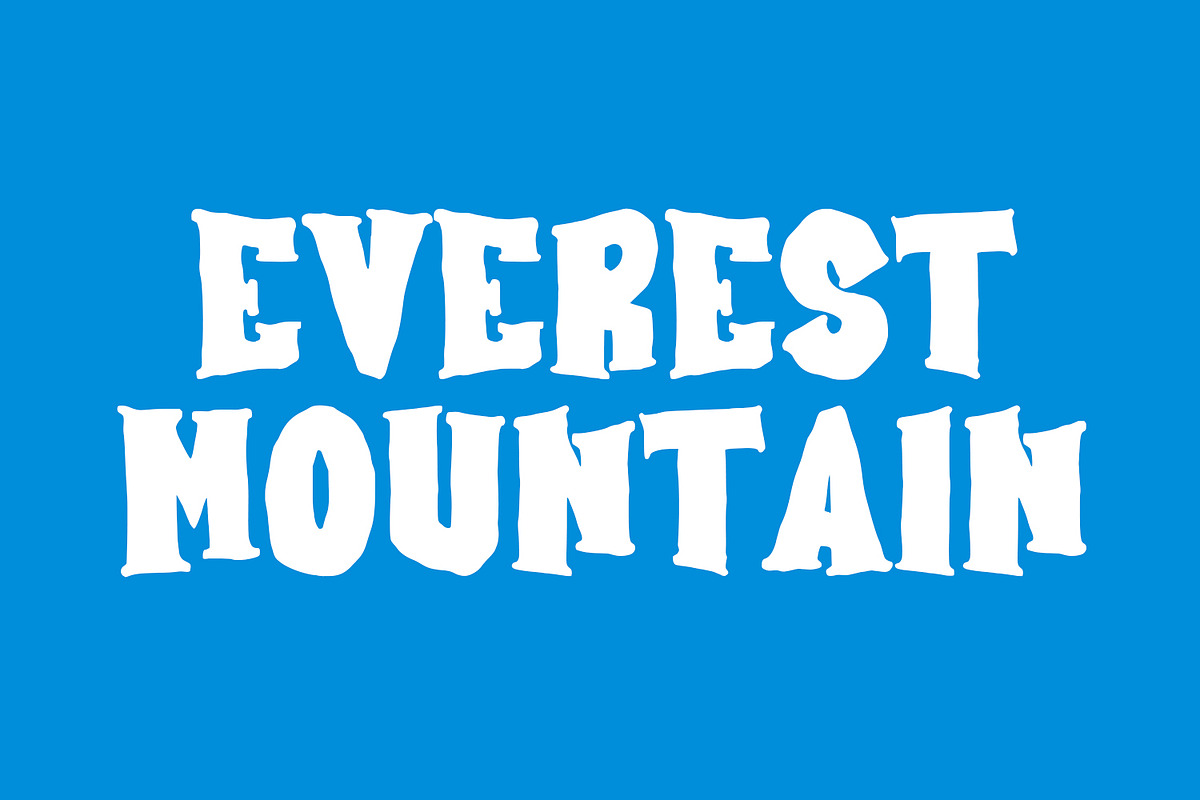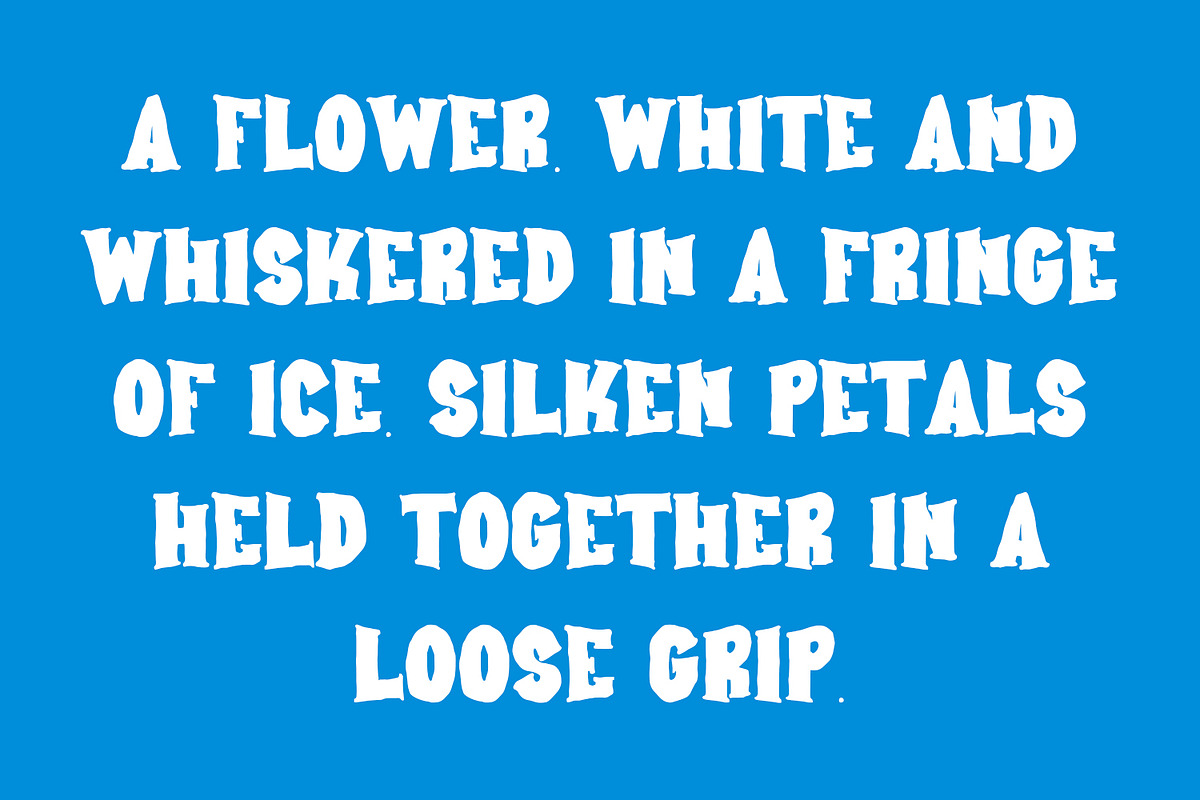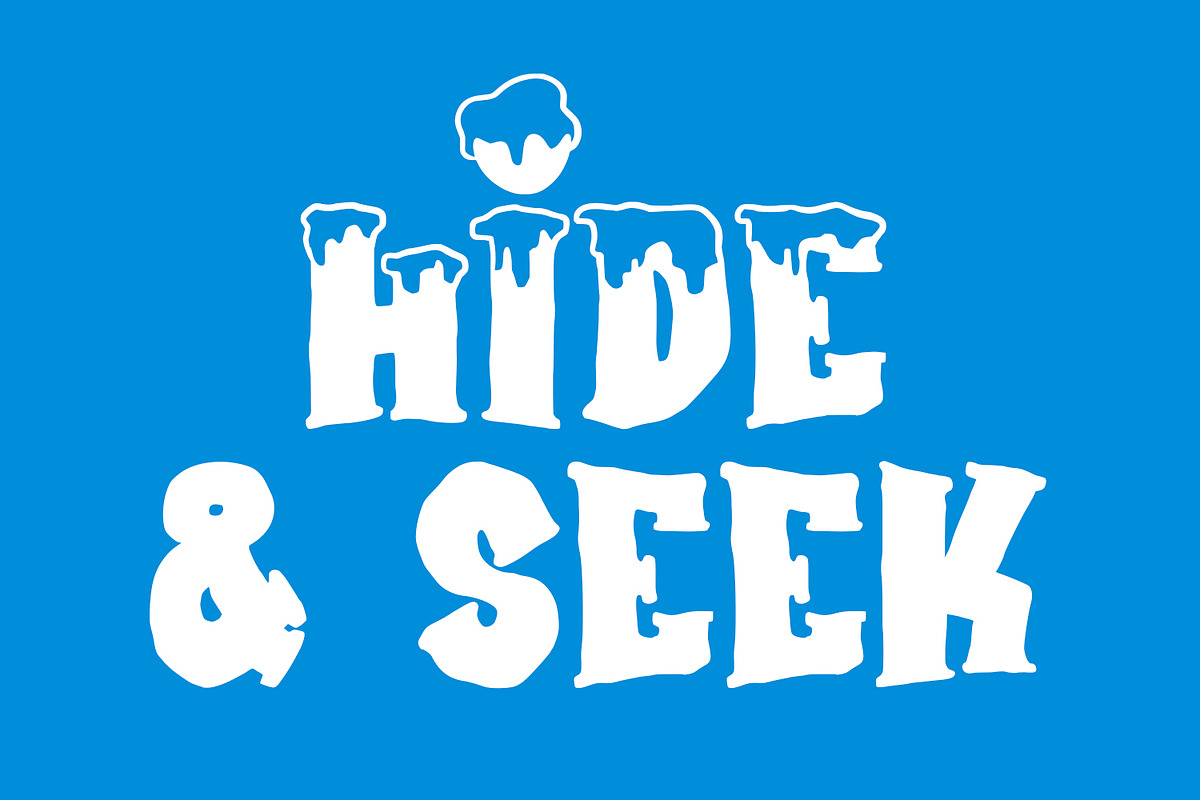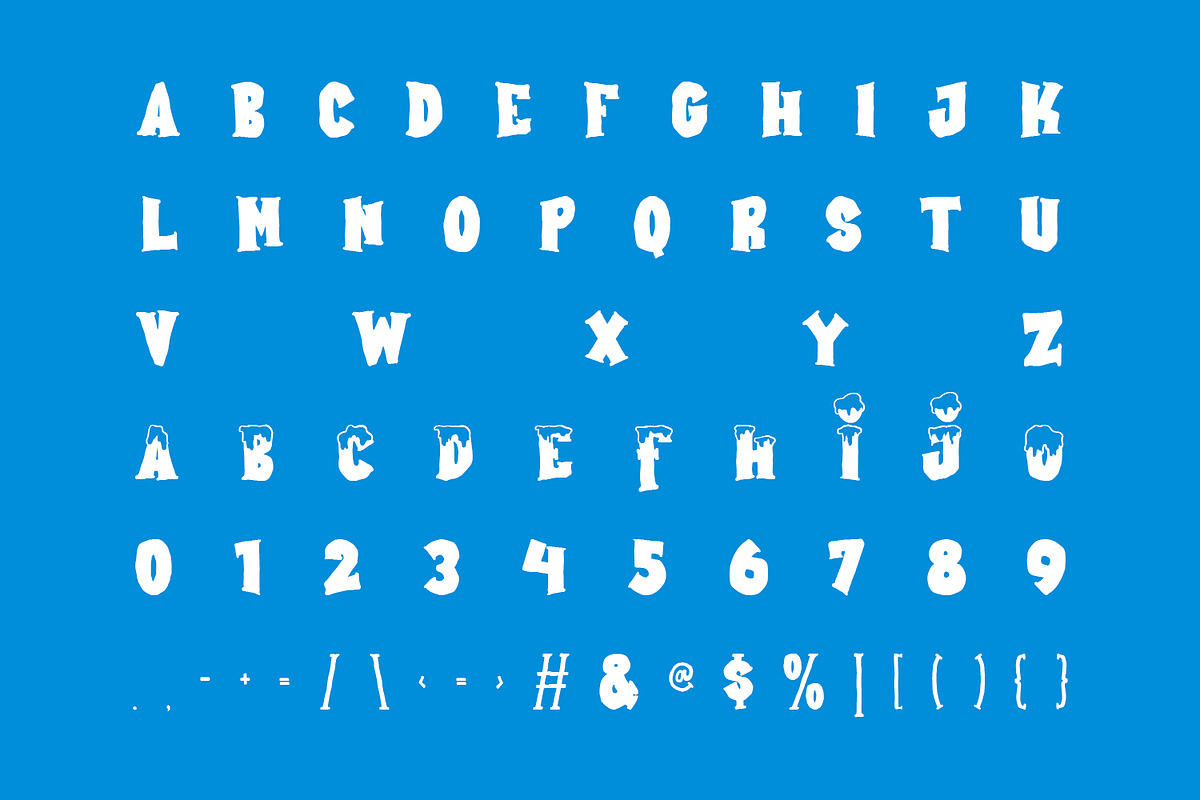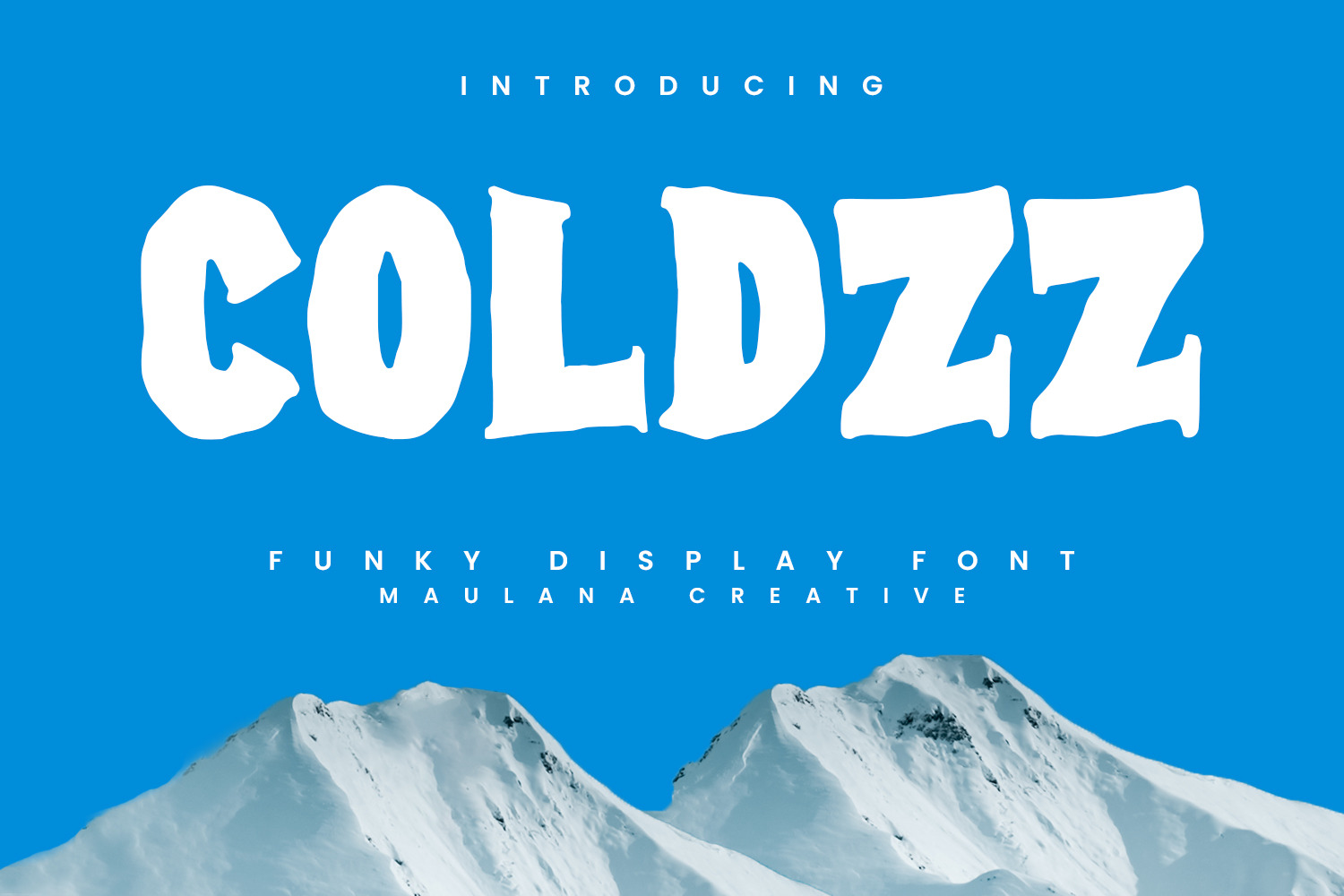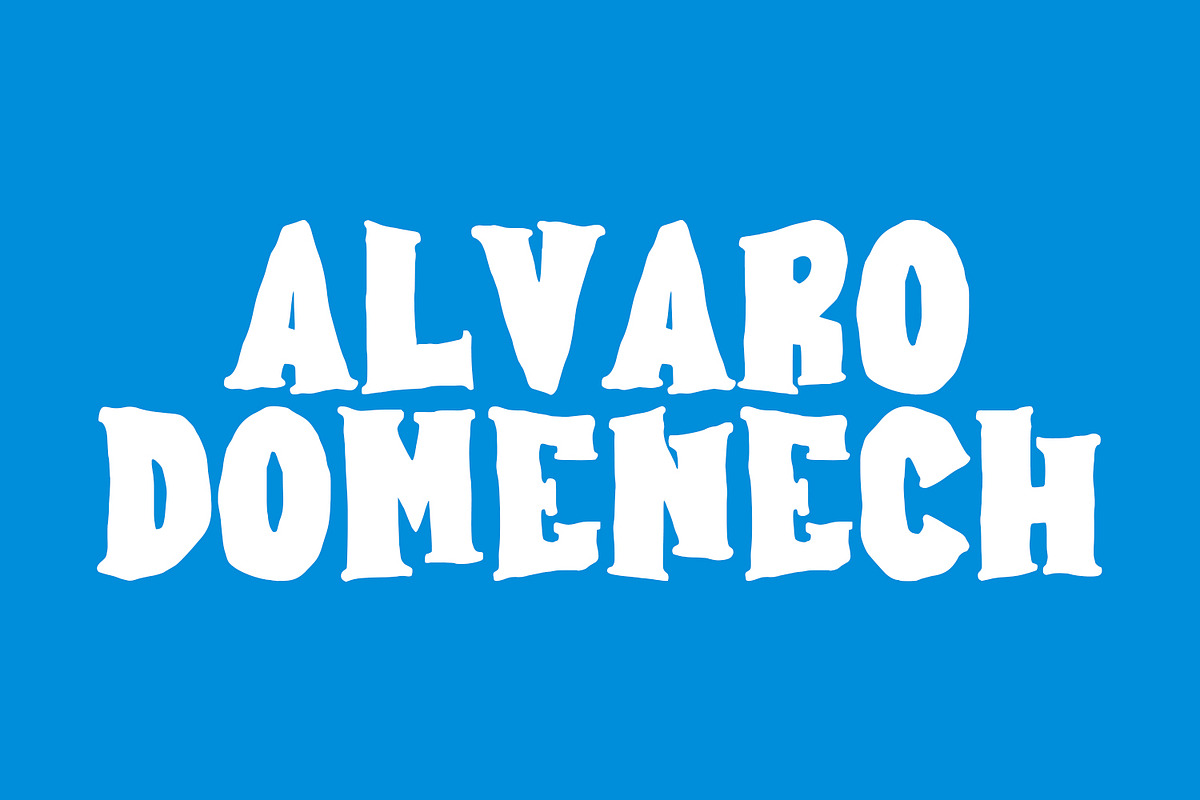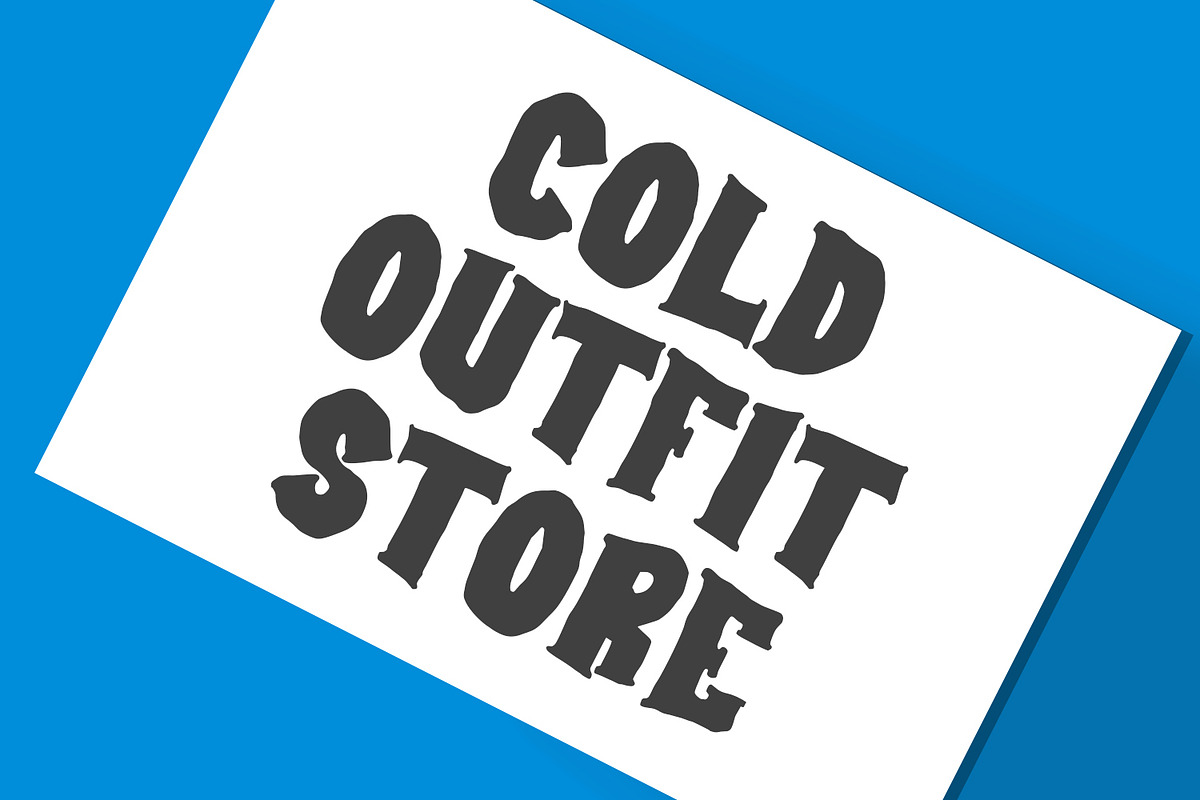
Coldzz Freeze Funky Display Font Vin
Coldzz freeze funky display font vintage. With bold tall and sharp stroke, fun character with a bit of ligatures and alternates. To give you an extra creative work. Coldzz font support multilingual more than 100+ language. This font is good for logo design, Social media, Movie Titles, Books Titles, a short text even a long text letter and good for your secondary text font with sans or serif. Make a stunning work with Coldzz font.